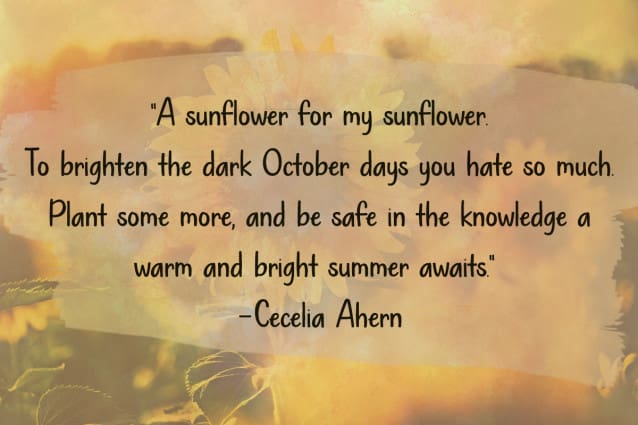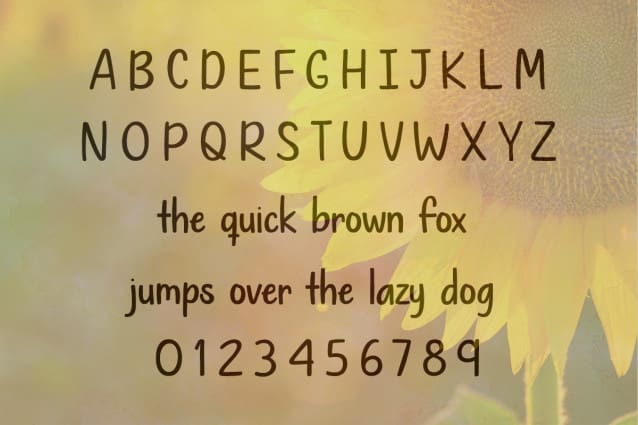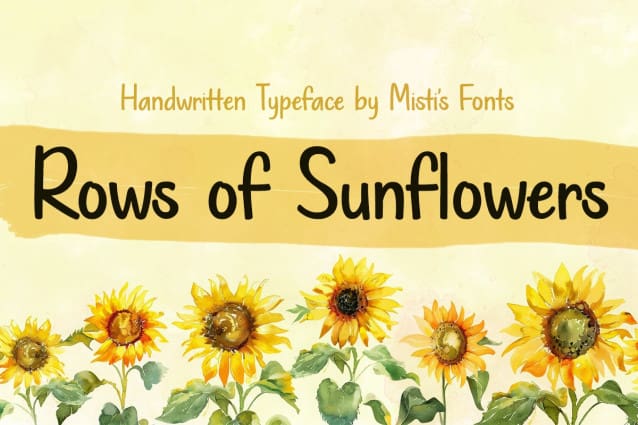
Rows Of Sunflowers Font
Rows Of Sunflowers Font is a delightful handwritten font that exudes warmth and playfulness. Perfect for invitations, greeting cards, logos, and social media graphics, this cute font brings a touch of sunny charm and personality to any design project.